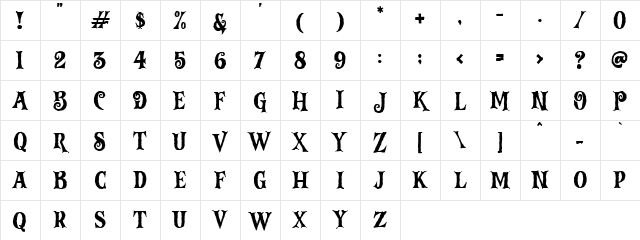
Vampire Zone Regular
Foundry: Blankids Studio
Designer: Bangkit Tri Setiadi
Design Context for Vampire Zone
Vampire Zone is a composed and adaptable typeface that performs quietly and consistently across a wide range of design contexts.